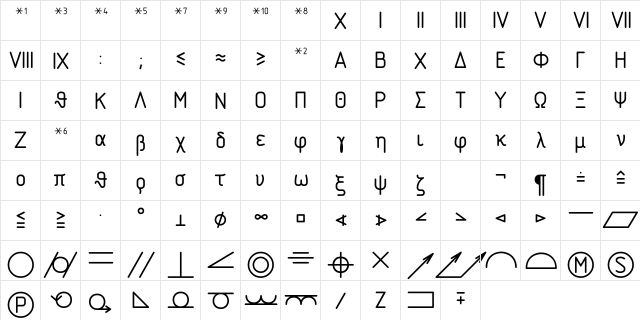
Symbol type B Symbol
Design Context for Symbol type B Typeface
Symbol type B takes a measured approach to typography — its balanced proportions and neutral character make it a reliable workhorse for both digital and print work.